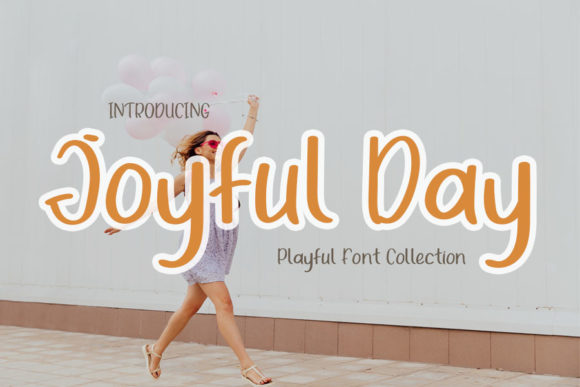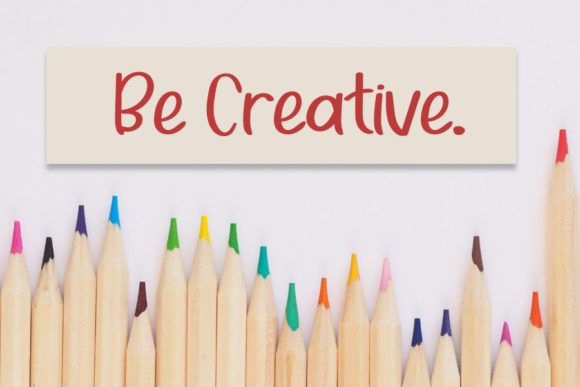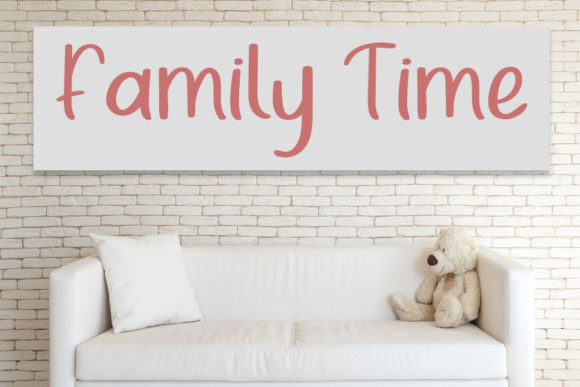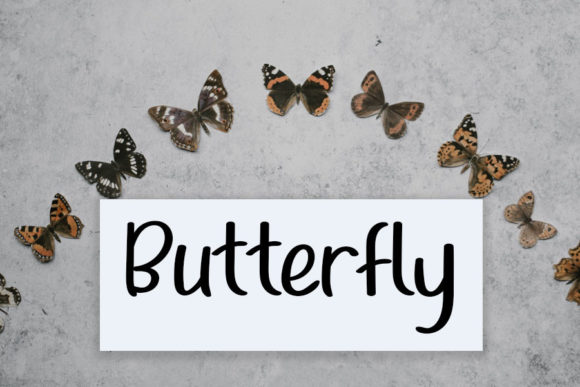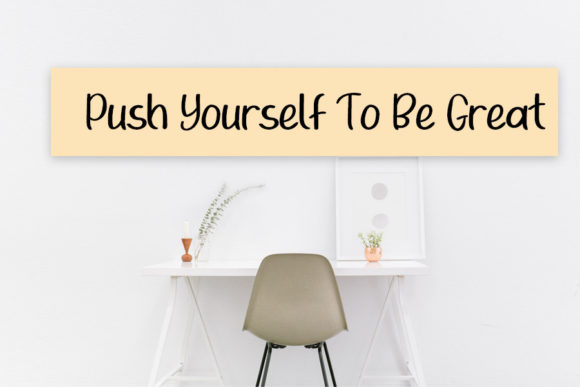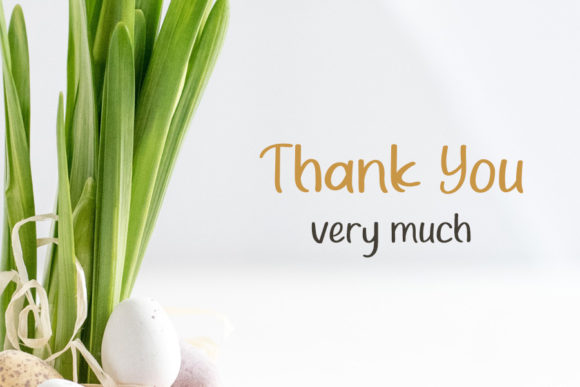
Joyful Day Font
About Joyful Day Font
Joyful Day is a playful and neat handwritten font that adds a touch of charm and cheerfulness to your designs. With its lively and dynamic style, this font brings a sense of joy and positivity to any project.
The simplicity of Joyful Day makes it incredibly versatile and easy to use. Its clean and legible characters ensure clarity and readability, making it suitable for various design purposes. Whether you’re creating greeting cards, social media graphics, invitations, or any other creative project, Joyful Day will instantly elevate your design and make it more engaging.
The relaxed and casual vibe of Joyful Day adds a sense of approachability and friendliness to your text. It feels effortless and free-spirited, capturing the essence of a carefree and joyful day. This font is perfect for projects that require a laid-back and fun-loving atmosphere, such as party invitations, casual branding, or children’s designs.
Joyful Day’s adaptability allows it to work well with a wide range of design styles and themes. Its playful nature can be incorporated into both modern and whimsical designs, adding a touch of liveliness and character. With Joyful Day, you have the freedom to explore different creative possibilities and bring your ideas to life with a vibrant and cheerful touch.
In conclusion, Joyful Day is a playful and neat handwritten font that infuses your designs with joy and positivity. Its simplicity and versatility make it suitable for a variety of projects, while its relaxed and cheerful vibe adds an appealing charm. Embrace the fun and energy of Joyful Day to create designs that instantly capture attention and spread happiness.